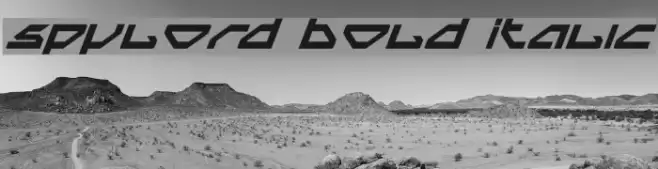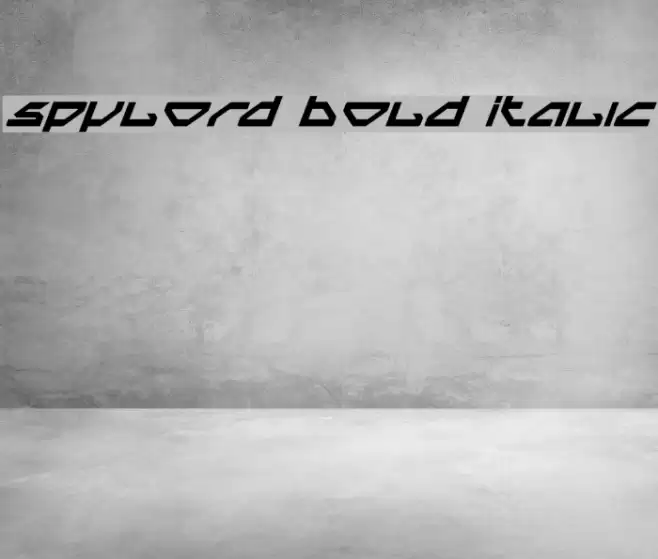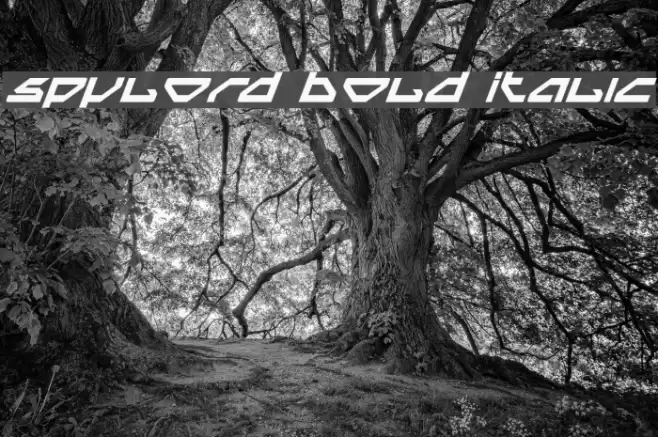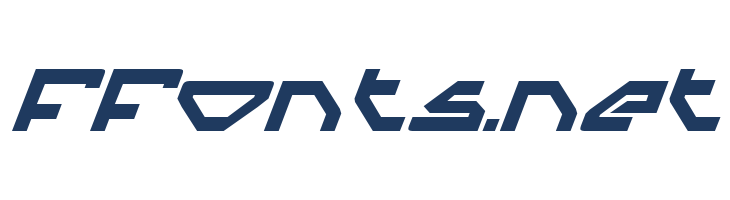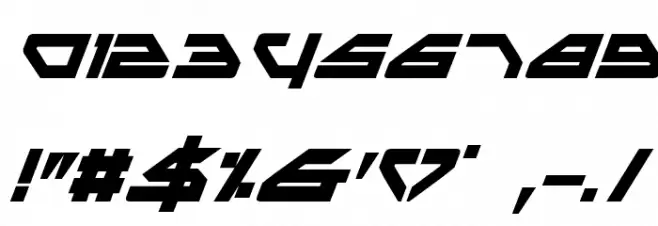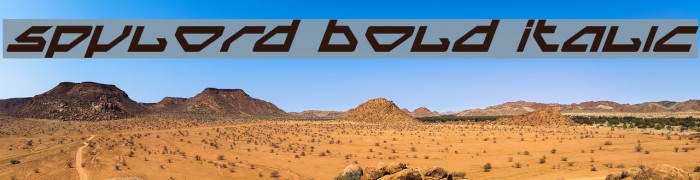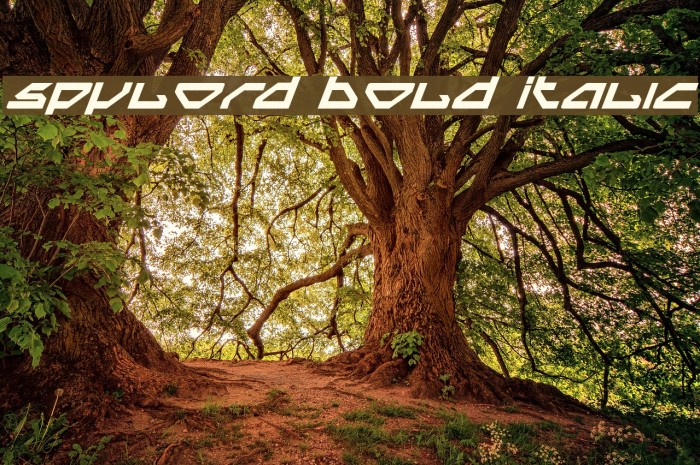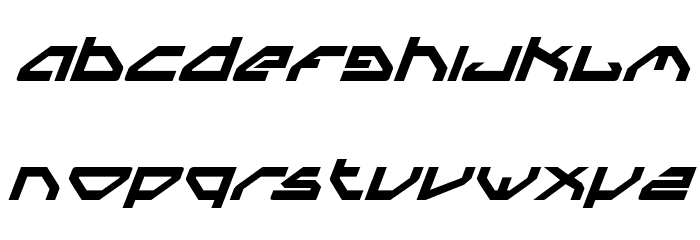
Spylord Bold Italic Font
Spylord Bold Italic Description
This font exhibits a bold and italicized style with a futuristic and angular design. The characters are sharply defined with a geometric aesthetic, featuring slanted lines and pointed edges that convey a sense of motion and speed. The uppercase and lowercase letters maintain a consistent angular theme, creating a cohesive and dynamic appearance. Numbers and special characters follow the same stylistic approach, ensuring uniformity across all glyphs. The font's boldness is evident in its thick strokes, while the italic slant adds a sense of forward momentum, making it ideal for projects that require a modern and edgy look.
A bold, italicized font with a futuristic, angular design from Uncategorized fonts.
- Proposed Projects: Ideal for sci-fi themed designs, video game titles, tech branding, and modern posters.